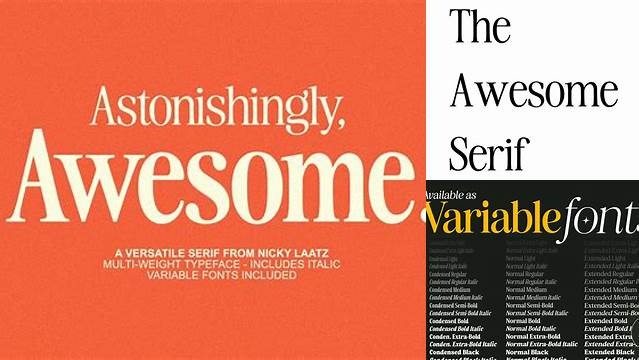
Serif Italic Variable Fonts: Free Downloads
Hey guys! Are you on the hunt for that perfect serif italic variable font? You know, the kind that just screams elegance and sophistication, but also gives you the flexibility to tweak it to your heart's content? Well, you've landed in the right place! We're diving deep into the world of awesome serif italic variable fonts and where you can snag them for free. Get ready to level up your design game!
What is a Serif Italic Variable Font?
Before we jump into the freebies, let's make sure we're all on the same page. What exactly is a serif italic variable font? Well, let’s break it down. A serif font, as you probably know, is characterized by those little decorative strokes (the serifs) at the ends of the letters. Think Times New Roman or Garamond – classic, right? Italic, of course, refers to the slanted style of the font, which often adds a touch of flair and emphasis. Now, the “variable” part is where things get really interesting. Variable fonts are like the superheroes of the font world. They allow you to adjust various aspects of the font, such as weight, width, and slant, all within a single font file. This is a game-changer because it gives you incredible control and flexibility over your typography. You’re not stuck with just one weight or width; you can fine-tune it to fit your exact needs. So, a serif italic variable font combines the classic elegance of serifs, the stylish slant of italics, and the incredible adaptability of variable font technology. It's like having a whole font family in one tidy package! Now that we know what we’re talking about, let’s explore why these fonts are so awesome and where you can find them without spending a dime. Trust me, this is the stuff design dreams are made of!
Why Choose a Serif Italic Variable Font?
So, why should you even bother with a serif italic variable font? What makes it so special? Well, let me tell you, the benefits are numerous! First off, the sheer versatility is a huge win. Imagine having a font that can morph from a delicate, light italic to a bold, commanding statement, all within the same font file. That's the power of a variable font. You can adjust the weight, width, and slant to perfectly match the mood and style of your project. This is especially useful for branding, where consistency is key, but you also need to create visual hierarchy and emphasis. Think about a logo that needs to look elegant on a business card but also needs to stand out on a website header. A variable font can handle both with ease.
Another major advantage is the file size. Traditional font families, with all their different weights and styles, can be quite hefty, which can slow down your website or bloat your design files. Variable fonts, on the other hand, pack all that flexibility into a single, smaller file. This means faster loading times for your website and less clutter in your design projects. Plus, let's talk about the aesthetic appeal. Serif italic fonts have a timeless quality that just exudes sophistication and class. They're perfect for projects that need a touch of elegance, such as invitations, book covers, or high-end branding. And when you combine that classic look with the modern flexibility of variable font technology, you get a truly winning combination. You can create unique and eye-catching typography that stands out from the crowd. So, if you're looking for a font that's versatile, efficient, and beautiful, a serif italic variable font is definitely the way to go. Now, let's get to the good stuff: where to find these gems for free!
Top Free Serif Italic Variable Fonts You Should Know
Alright, let’s cut to the chase: what are some specific free serif italic variable fonts you should be checking out? I’ve scoured the internet and rounded up a few top contenders that are definitely worth a look. Keep in mind that the availability of free fonts can change, so always double-check the licensing before using them in your projects. One standout is Literata. This font, designed by Google, is a beautiful serif that was specifically created for reading on screens. While it might not be a strictly italic variable font, it does offer a range of weights and styles that make it incredibly versatile for body text and headlines alike. Its clean and elegant design makes it a great choice for everything from websites to ebooks. Another fantastic option is IBM Plex Serif. This font family is part of the larger IBM Plex project, which aims to create a cohesive and versatile typeface system for IBM’s brand. The serif version is particularly well-suited for editorial design and longer texts, and it includes a range of weights and styles, including italics. While not a fully variable font in the strictest sense, it offers enough flexibility to be a valuable addition to your font library.
Another hidden gem you might stumble upon is fonts from independent designers. Many talented typographers offer free demo versions of their fonts, which might include variable font features. These demo versions might have some limitations, but they can still be a great way to experiment with variable fonts and see how they work in your designs. Websites like Behance and Dribbble are excellent places to discover the work of independent designers, and you might just find a free font or two while you're there. Remember, the world of free fonts is constantly evolving, so it’s always a good idea to stay curious and keep exploring. Don't be afraid to try out new fonts and see how they can elevate your designs. You never know when you might stumble upon your next favorite typeface! So, with these top contenders in mind, let’s dive into how you can actually use these fonts in your projects to make them shine. Trust me, the possibilities are endless!
How to Use Serif Italic Variable Fonts in Your Projects
Okay, you’ve found some amazing free serif italic variable fonts – now what? How do you actually put these beauties to work in your projects? The key here is understanding the power of variability. Variable fonts, as we’ve discussed, give you a level of control that traditional fonts just can’t match. You can adjust the weight, width, and slant to create a truly customized look. So, how do you actually do that? Most modern design software, like Adobe Photoshop, Illustrator, and InDesign, fully support variable fonts. When you select a variable font in these programs, you’ll typically see sliders or other controls that allow you to adjust the font’s parameters. For example, you might have a slider for weight that lets you smoothly transition from a thin, delicate italic to a bold, commanding one. Or you might have a slider for width that lets you make the font more condensed or more expanded. This level of control opens up a world of possibilities.
Think about how you can use this in your designs. For a website, you might use a lighter weight for body text to ensure readability and a bolder weight for headings to create visual hierarchy. You can even use subtle variations in weight to add visual interest to your text without being too jarring. In print design, variable fonts can be a lifesaver for creating consistent branding across different materials. You can fine-tune the font to perfectly fit the layout and ensure that your typography always looks its best. Another tip is to experiment with the italic slant. Variable fonts often allow you to adjust the angle of the italics, which can be a powerful tool for emphasis. A slight slant can add a touch of elegance, while a more dramatic slant can create a sense of urgency or excitement. But remember, guys, the key is subtlety. Don't go overboard with the variations! The goal is to enhance your design, not distract from it. A little experimentation can go a long way, so have fun playing around with the different parameters and see what you can create. Trust your eye and your instincts, and you’ll be amazed at the results you can achieve with serif italic variable fonts!
H2: Serif vs. Sans-Serif: Choosing the Right Font
The age-old debate between serif and sans-serif fonts is a cornerstone of typographic decision-making. Understanding the fundamental differences between these two font categories is crucial for selecting the right typeface for any given project. Serif fonts, characterized by the small strokes or